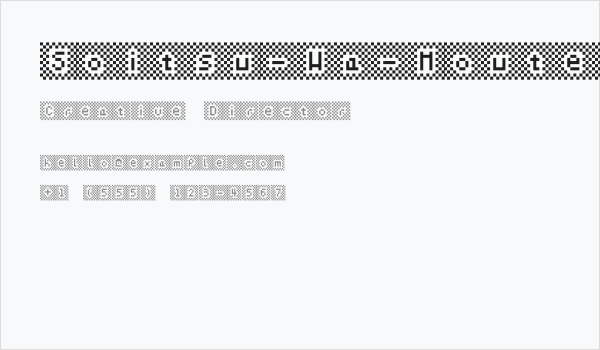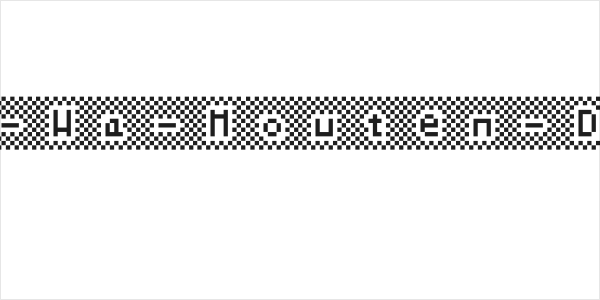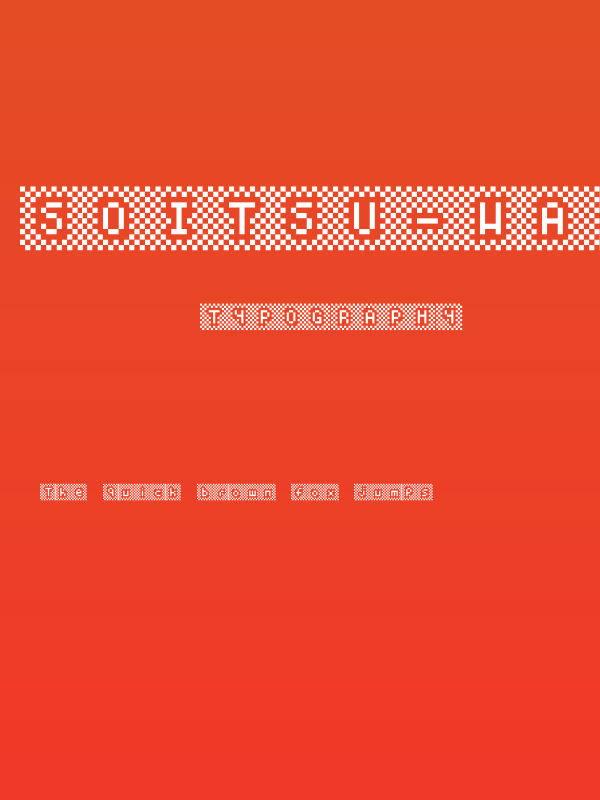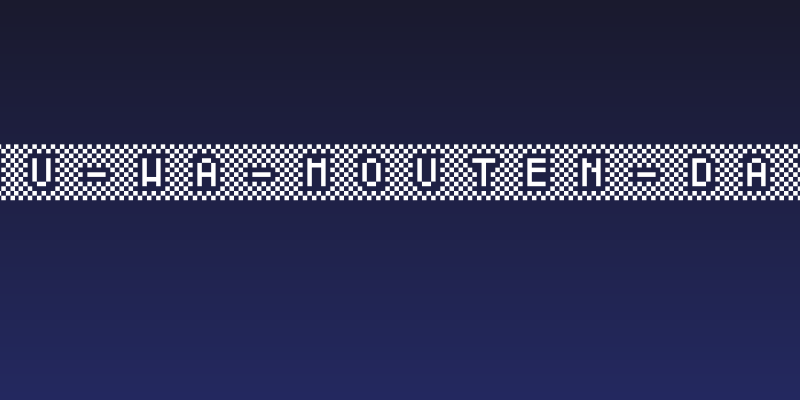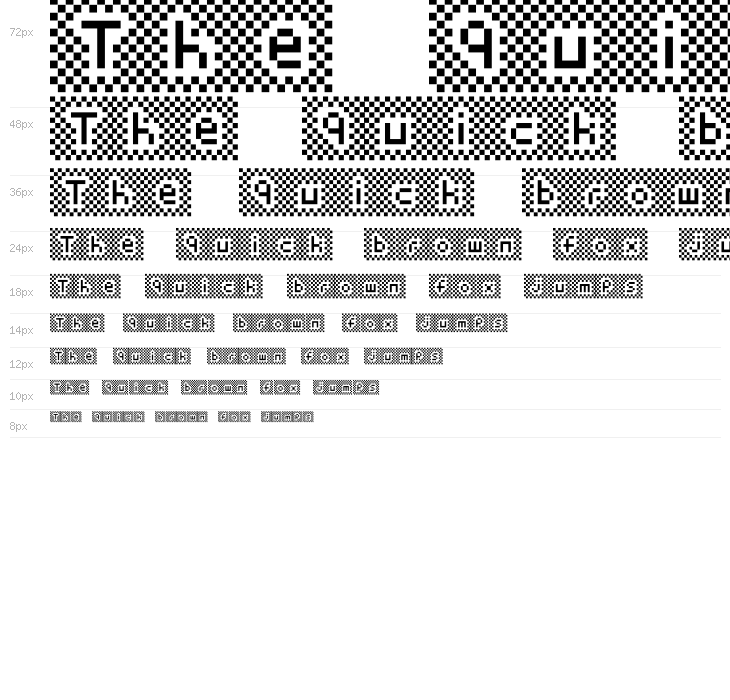
Soitsu-Wa-Mouten-Dattayo Font
Soitsu-Wa-Mouten-Dattayo Description
This font features a pixelated, grid-like design reminiscent of early digital displays and retro video games. Each character is composed of small, uniform squares, creating a blocky and geometric appearance. The uppercase and lowercase letters maintain a consistent height, contributing to a monospaced feel, while the numerals and special characters follow the same pixelated style. The overall aesthetic is distinctly digital and nostalgic, making it suitable for projects that aim to evoke a sense of vintage technology or gaming culture.
| Use Case | Logos, Headlines, Digital Art |
| Proposed Projects | Ideal for retro video game designs, digital art projects, tech-themed posters, and any creative work that seeks to capture a vintage digital aesthetic. |